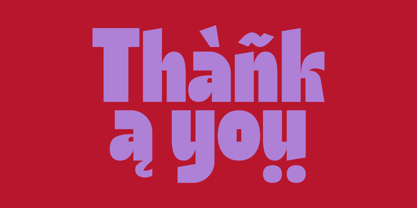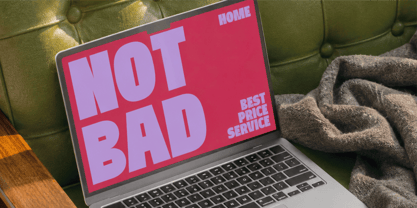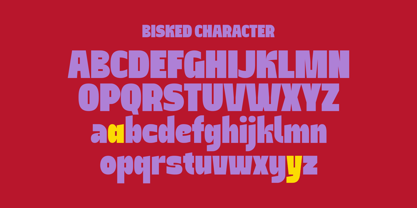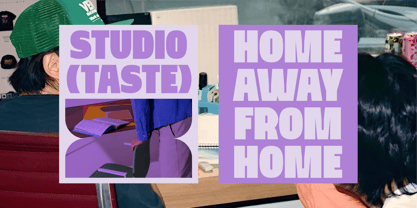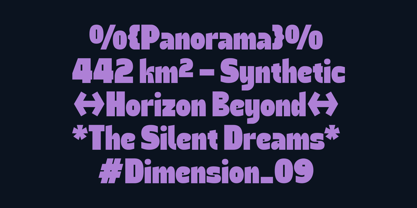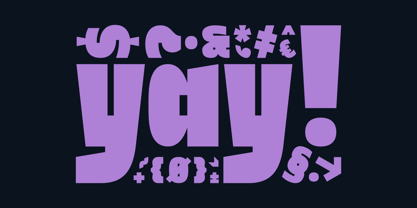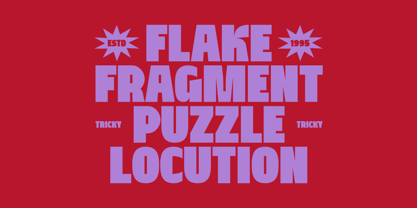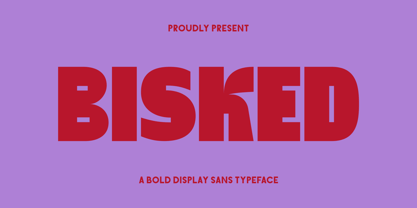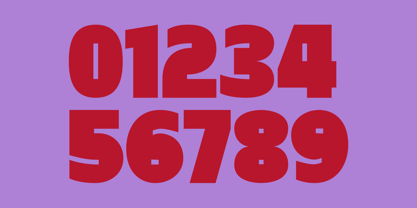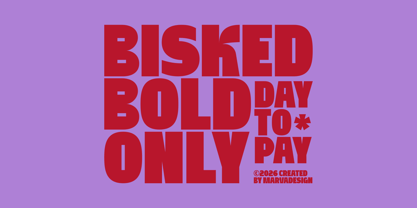
Bisked
by Marvadesign
The Bisked Font Family was designed by Febrie Setiawan and published by Marvadesign. Bisked contains 1 styles. More about this family
Bisked is a bold display sans serif typeface that combines retro aesthetics with experimental modern typography. Its oversized proportions, heavy geometric structure, and playful distortions create a strong visual presence that feels expressive, energetic, and highly memorable. Inspired by vintage editorial graphics, psychedelic posters, and brutalist design trends, Bisked delivers a nostalgic yet futuristic personality that instantly captures attention in large-scale compositions.
What makes Bisked unique is its unconventional letter construction, featuring exaggerated curves, asymmetrical cuts, warped shapes, and dynamic character forms that add an artistic and handcrafted feel while maintaining readability. The typeface works exceptionally well for posters, fashion branding, music covers, magazine headlines, streetwear graphics, packaging, and contemporary visual identities. With its loud, youthful, and rebellious character, Bisked is designed for projects that demand bold impact and creative expression.
Designers: Febrie Setiawan
Foundry: Marvadesign